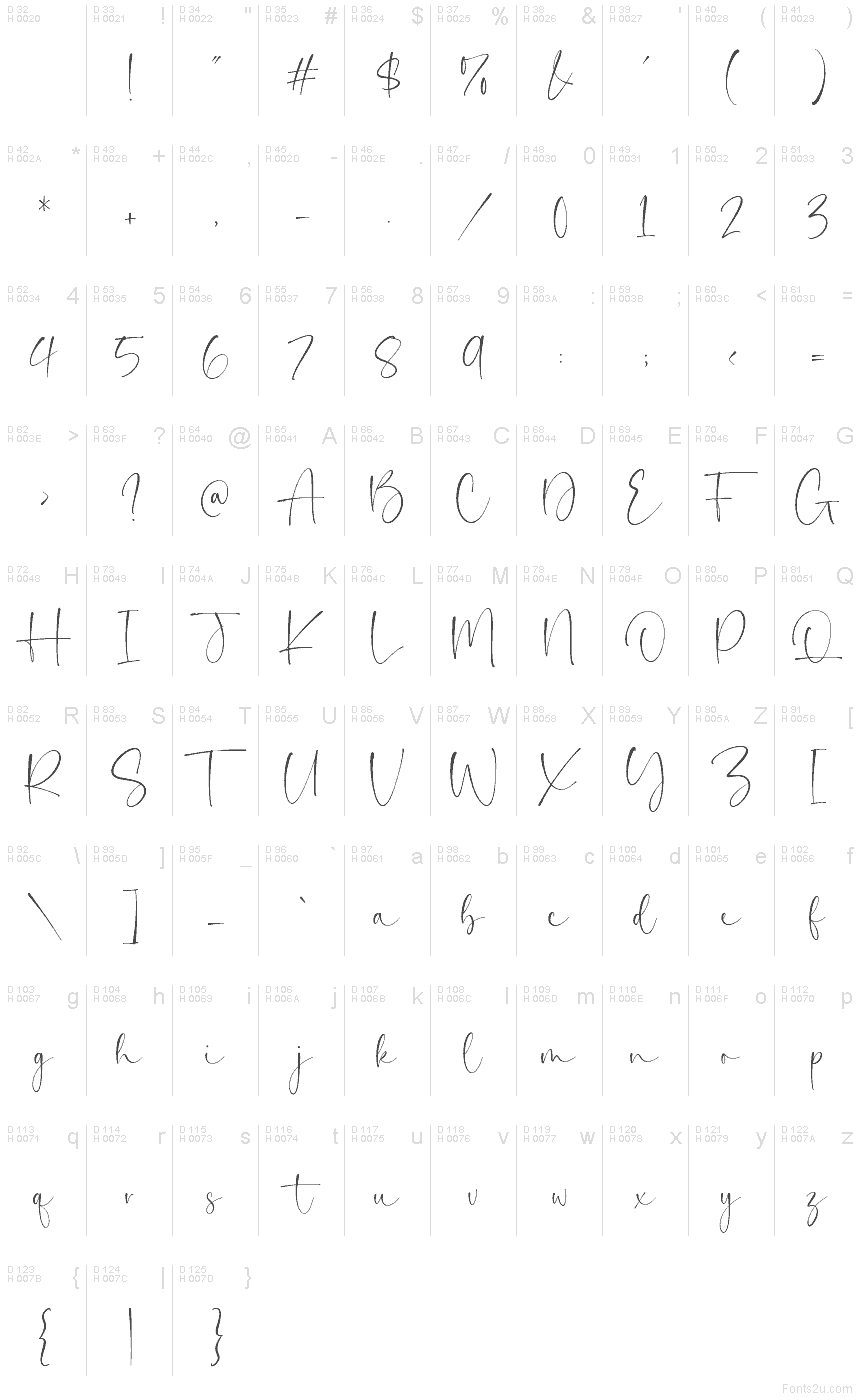
Hatteria
Hatteria typeface by Timur Type is a free light handwritten font. It stands out with whisper-thin monoline strokes, airy spacing, and those long, looping descenders that feel like ink skimming across smooth paper. Subtle tremors in the line keep it human, while tall ascenders and a high crossbar lend an elegant, modern poise that catches the eye without shouting.
Using Hatteria, headlines and wordmarks gain a graceful, personal spark that reads clean at display sizes. This free font shines on boutique logos, wedding suites, product packaging, social posts, magazine pull quotes, and minimalist posters. Pair it with a crisp geometric sans set small to let its delicate rhythm breathe.